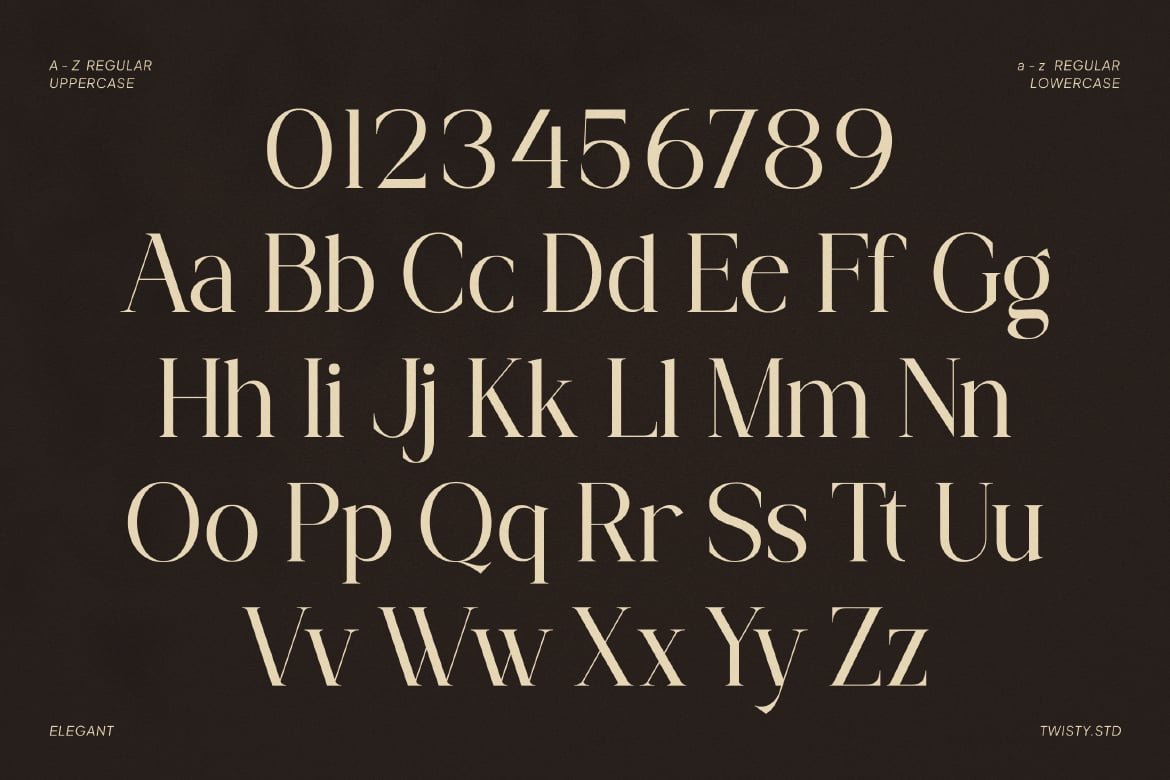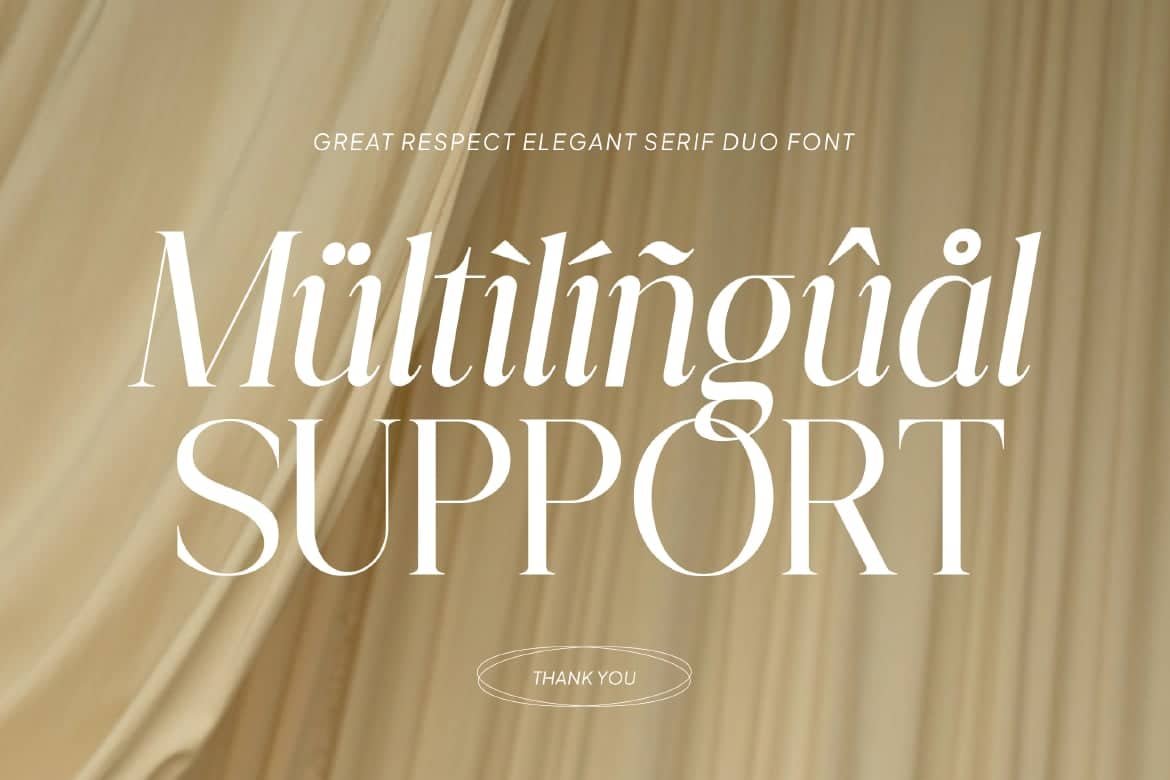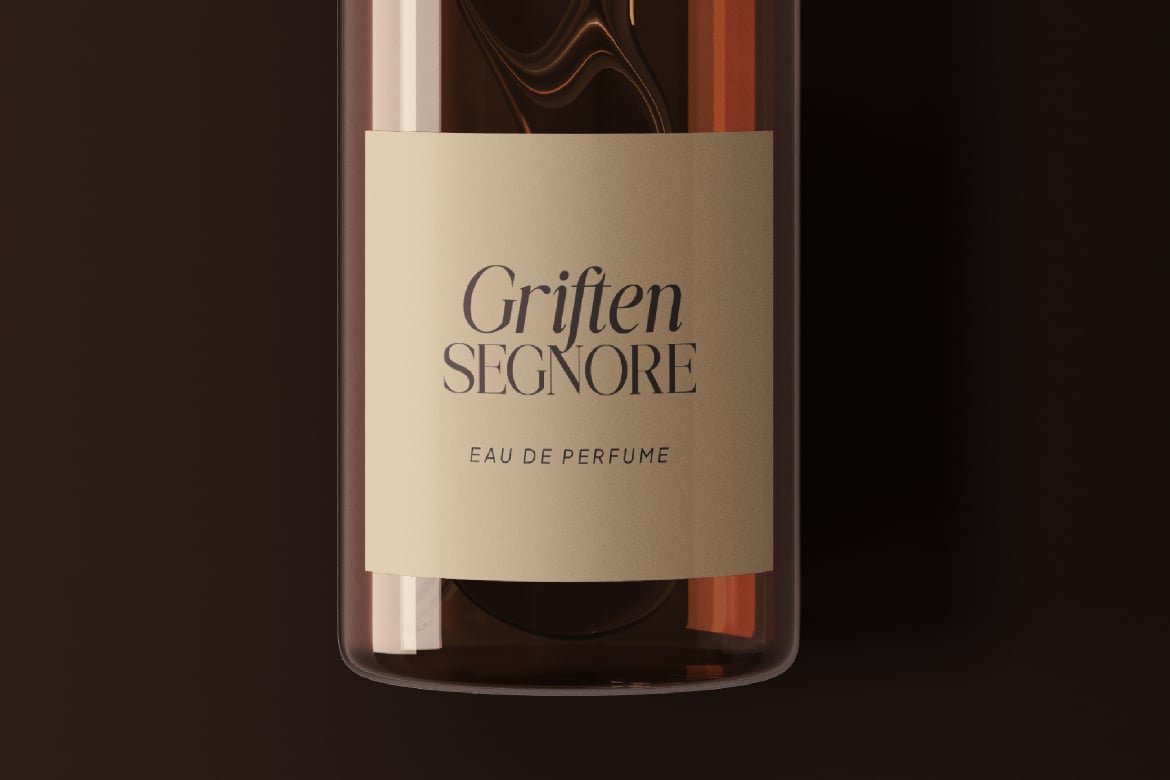
Elegant Serif Font – Great Respect
Great Respect is an elegant serif font designed to deliver timeless beauty with a refined and sophisticated style. Featuring graceful curves and carefully crafted details, this typeface creates a luxurious and polished look that enhances any design. This font comes as a duo style with Regular and Italic, allowing you to create beautiful contrast and emphasis effortlessly. The italic style adds a soft, expressive touch, while the regular version maintains a clean and classic structure—together creating a harmonious and elegant typographic pairing.
Who Should Use Great Respect?
Great Respect is perfect for designers, creatives, and brands who want to express elegance and sophistication in their work. It’s especially suitable for projects that require a clean yet luxurious visual identity with subtle variation.
Luxury and elegant branding
Logo and identity design
Fashion and beauty projects
Editorial and magazine layouts
Wedding invitations and stationery
Packaging design
Social media visuals
High-end typography and quotes